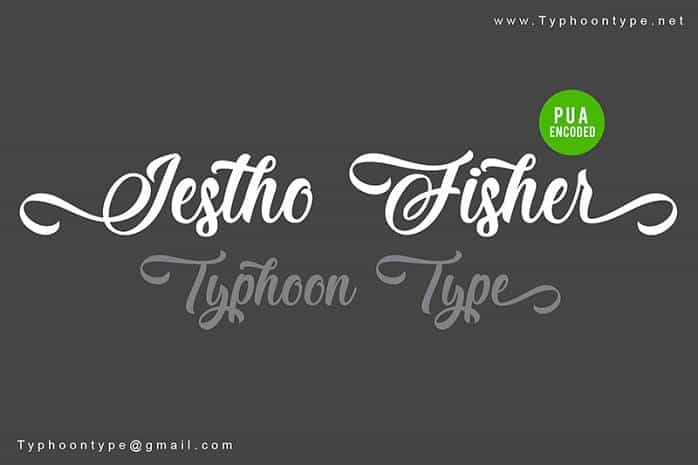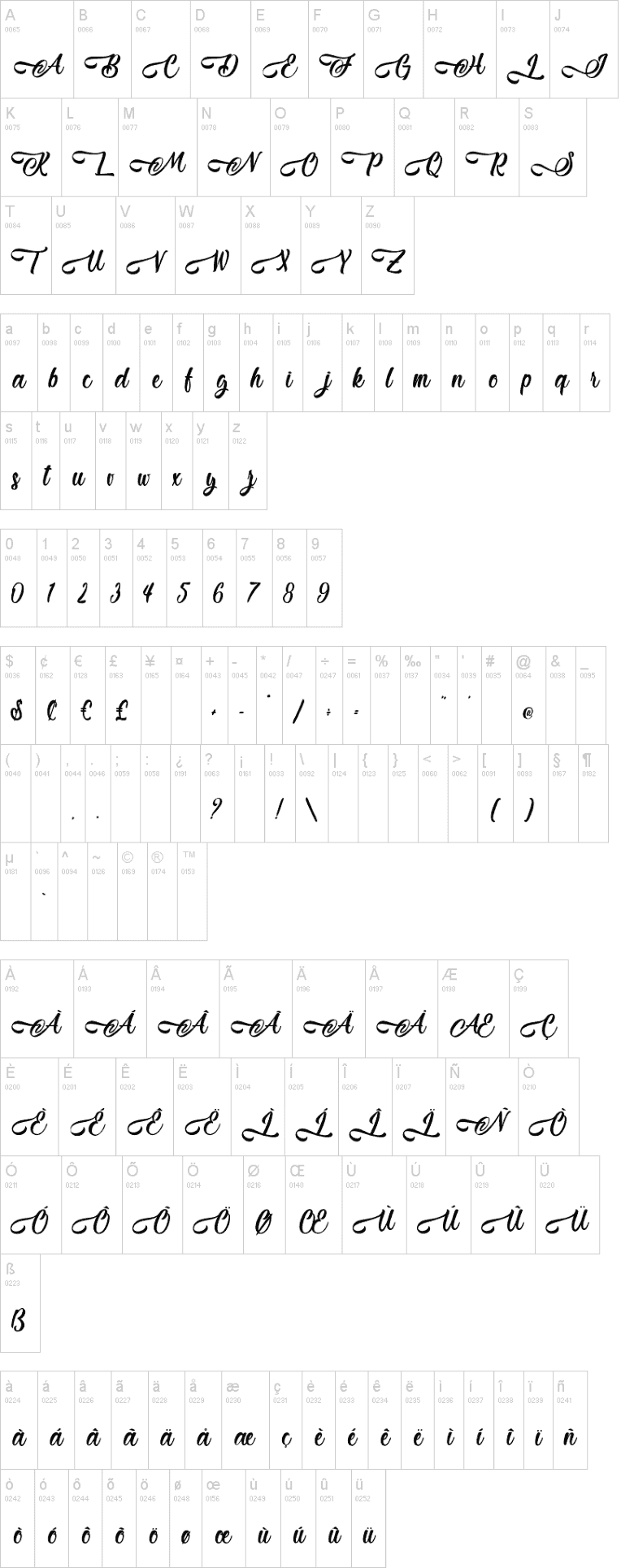
Discover Jestho Fisher Font, part of the Calligraphy collection—a versatile and unique font perfect for adding a personal touch to your projects. Download it for free and enjoy crafting designs with style, from invitations to social media posts. This font is available exclusively for personal use, giving you the freedom to create without limits. Unlock your creativity with Jestho Fisher Font today!
This particular Calligraphy font is called Jestho Fisher which is great quality and is free for downloading purpose as personal use or with buying its license from the designer with the name Typhoon Type – Suthi Srisopha. The free version is already offering all the alphabet letters both: upper and lower case and minimum special character as well.